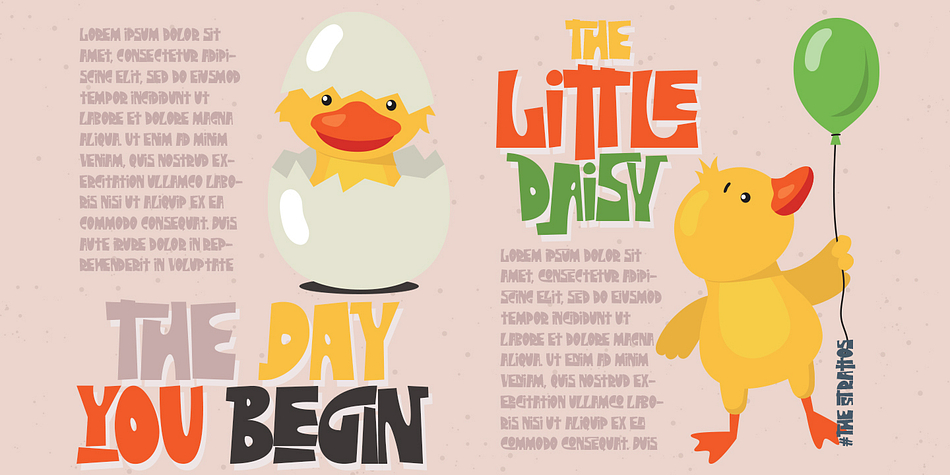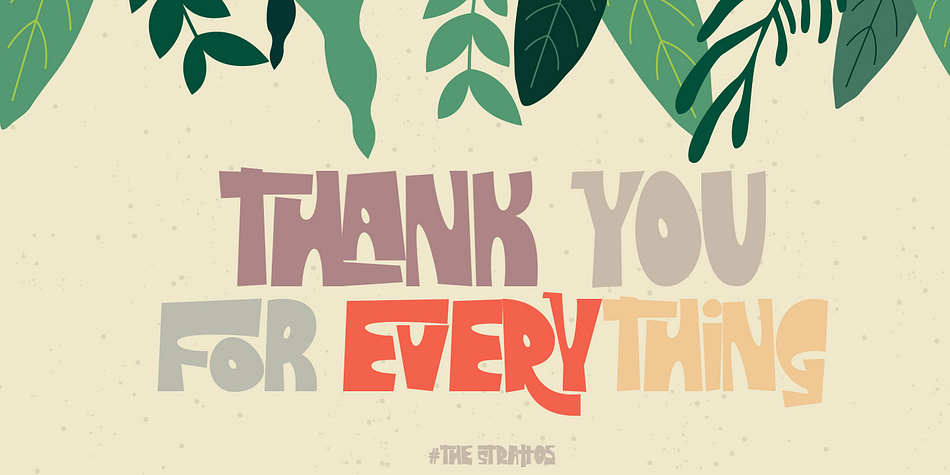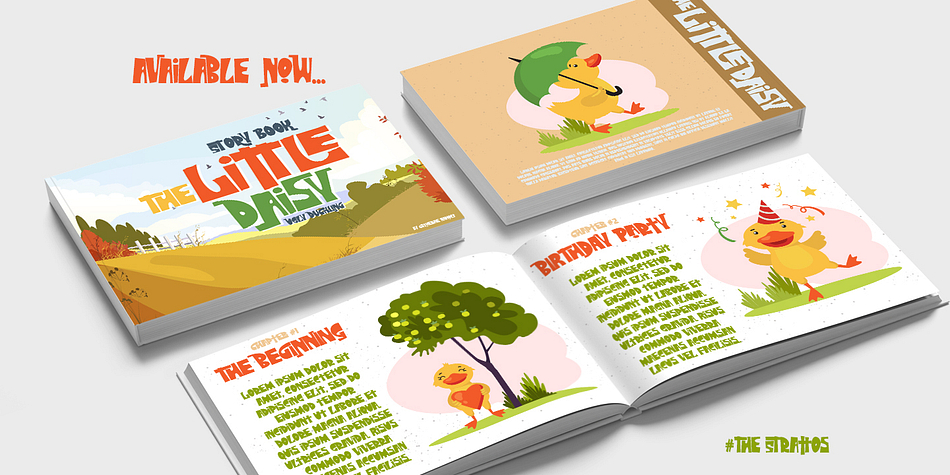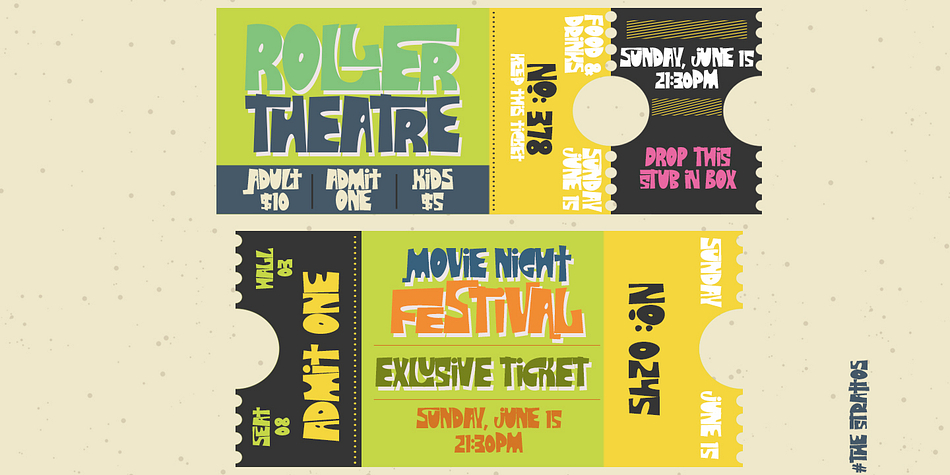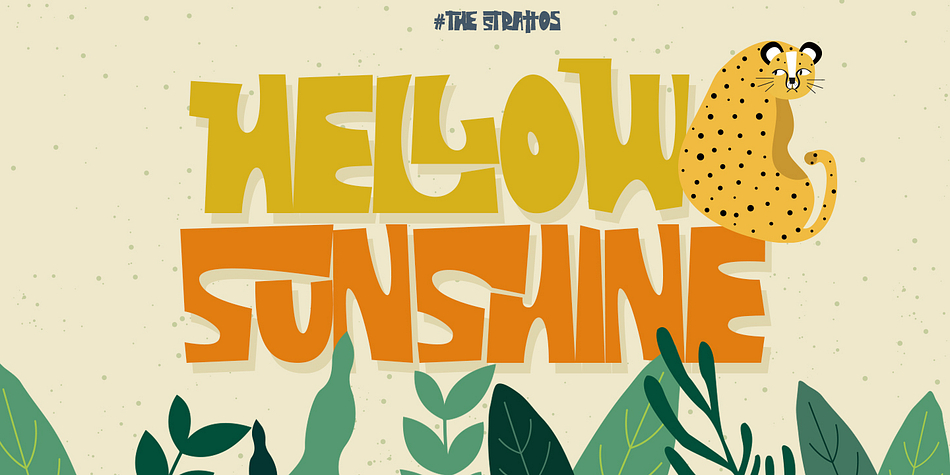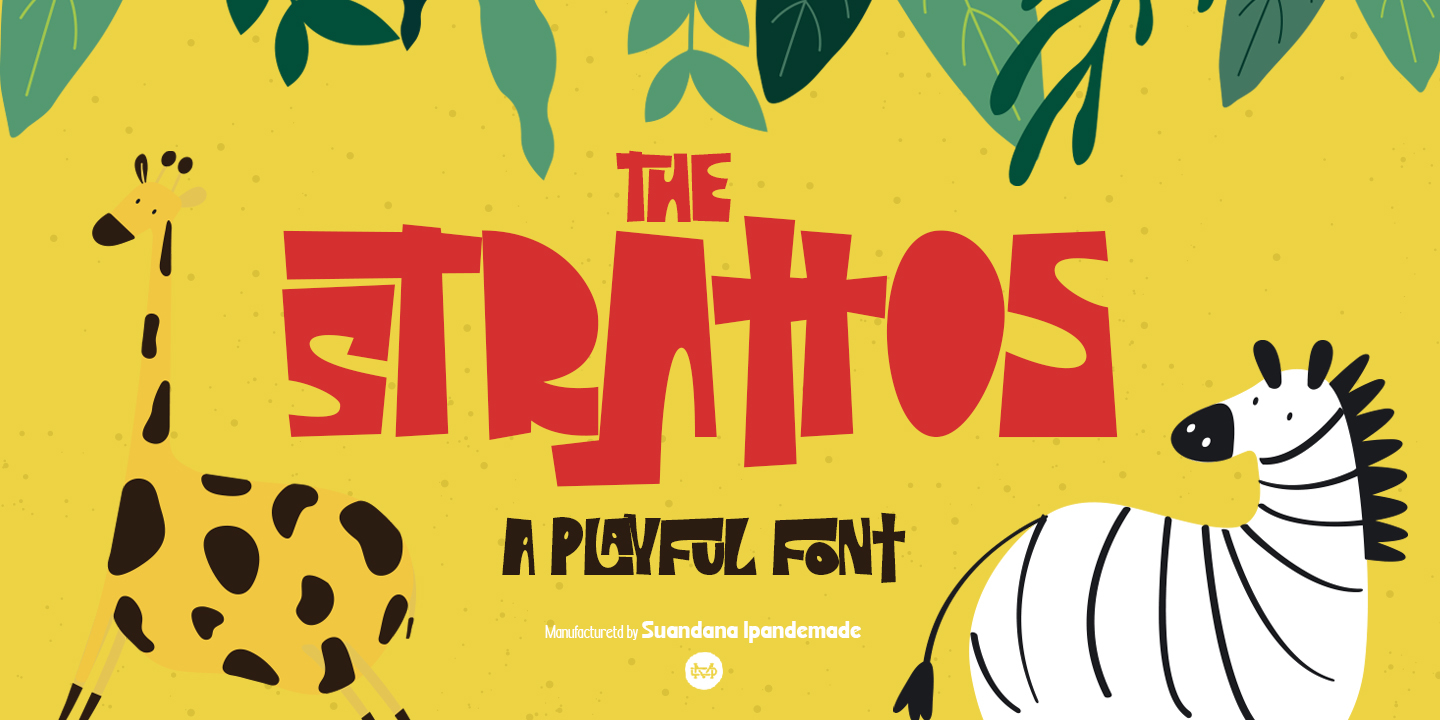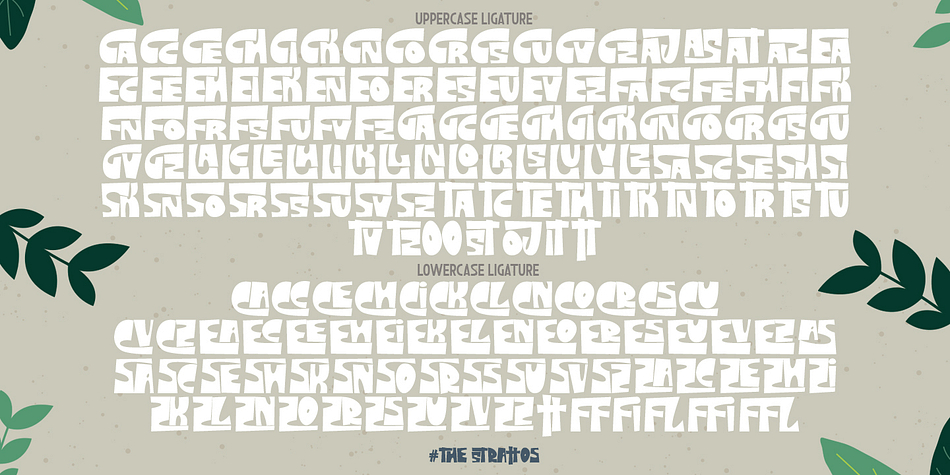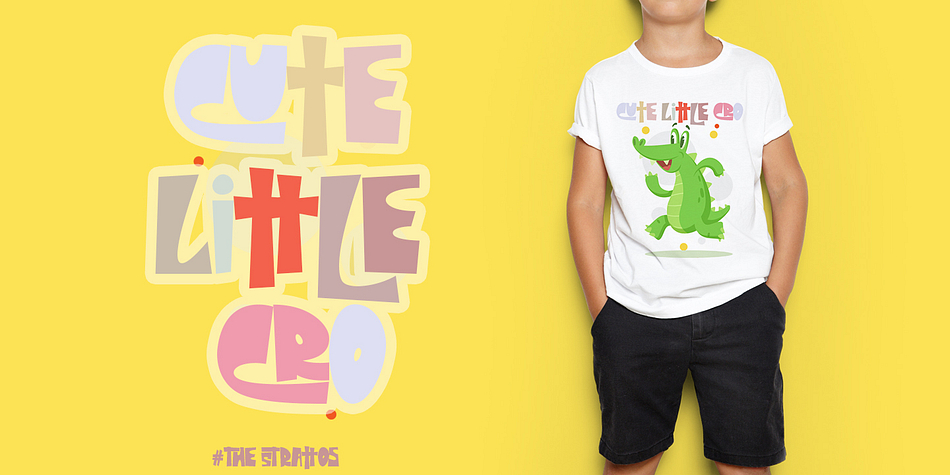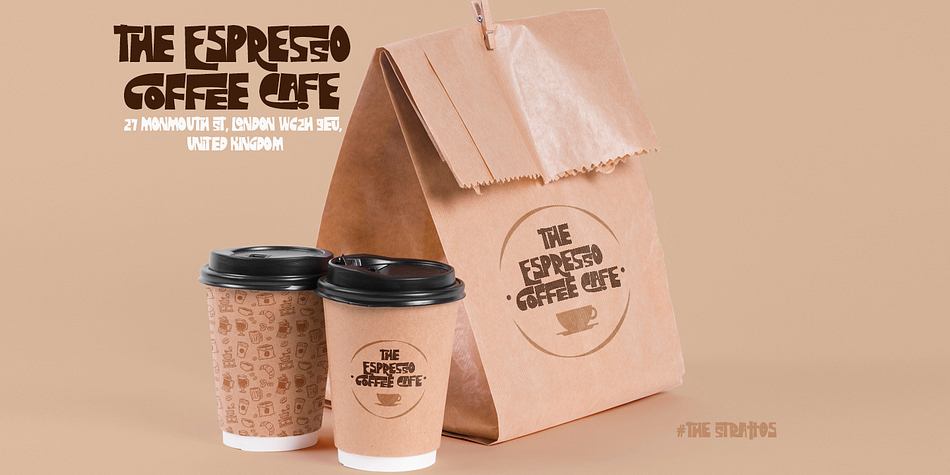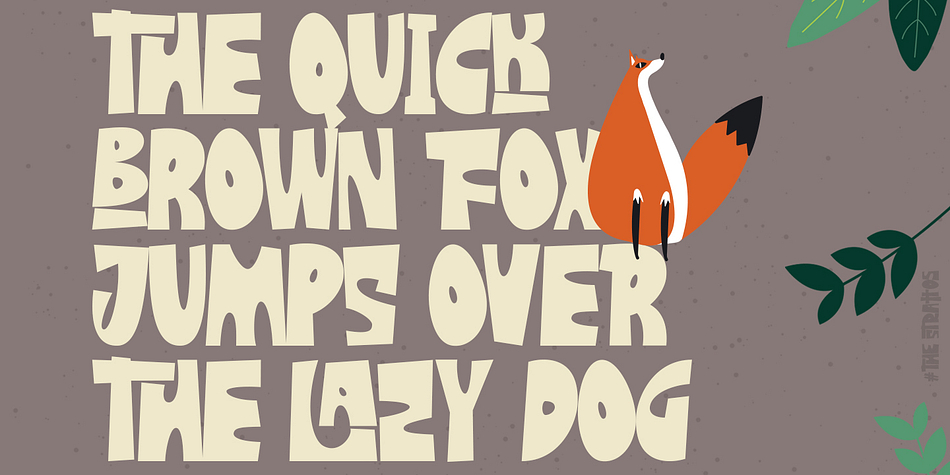
The Strattos
Designed by Suandana Ipandemade, The Strattos is a multiple classification font family. This typeface has two styles and was published by madeDeduk.
Introducing The Strattos is a powerful playful font and will be perfect for book, title branding, product packaging, invitation, quotes, t-shirt, label, poster, logo etc.
Styles Display, Hand Drawn, Novelty